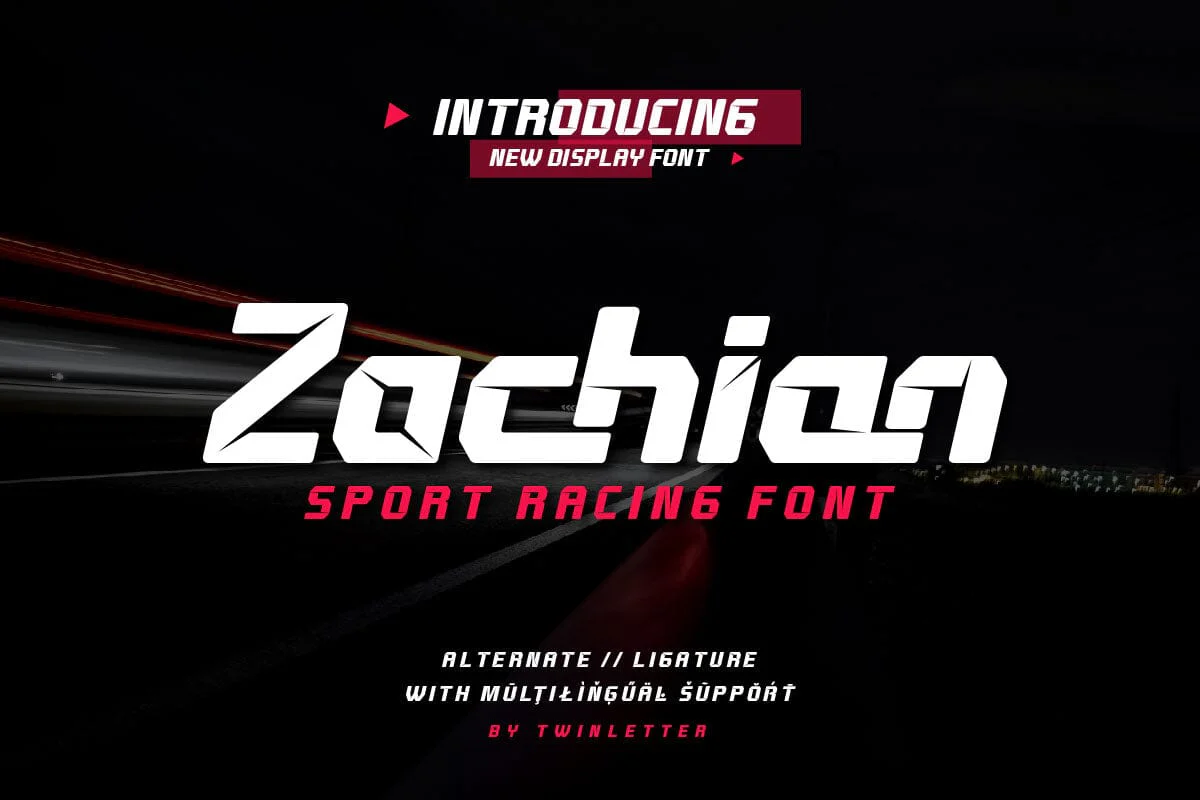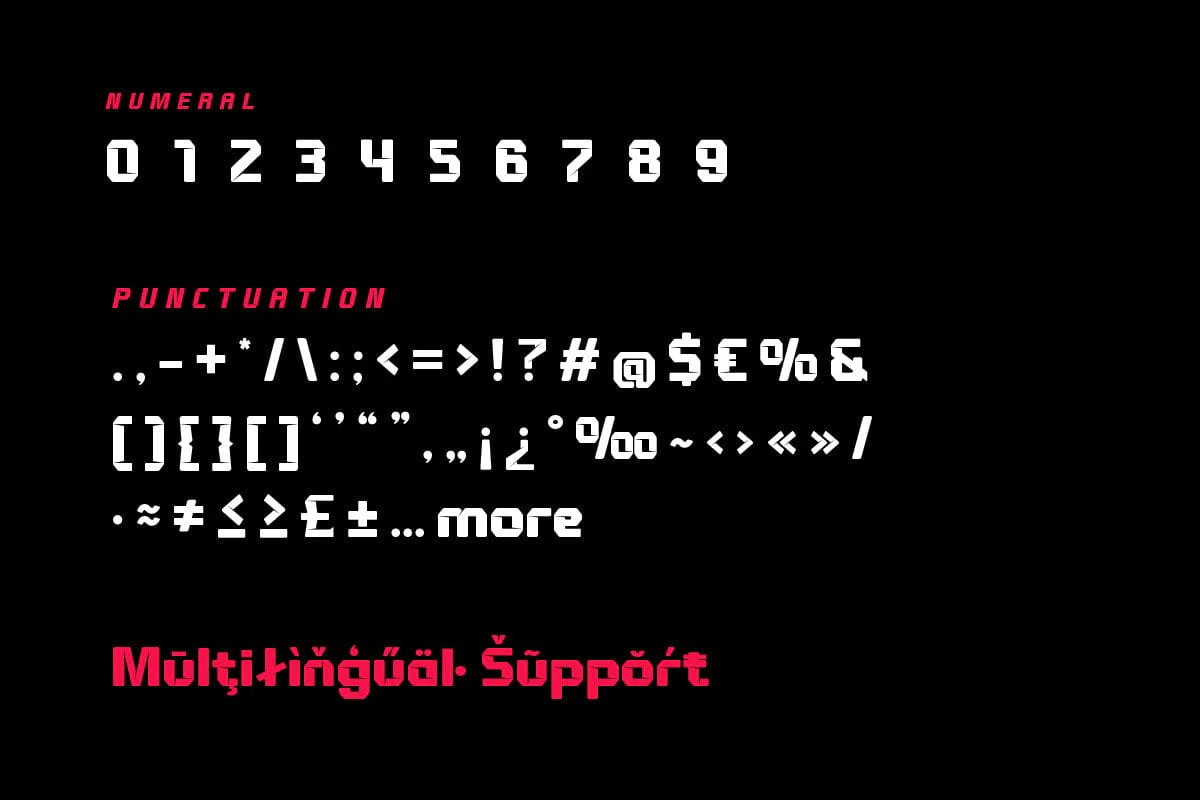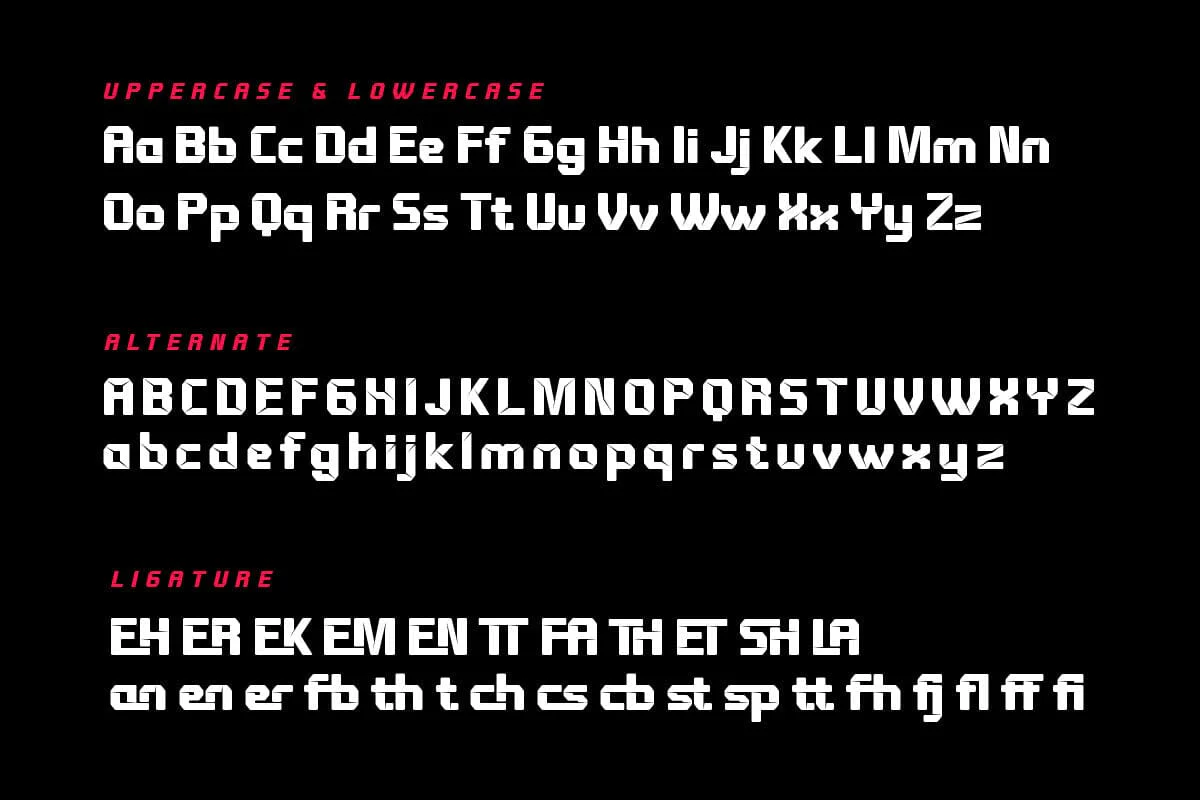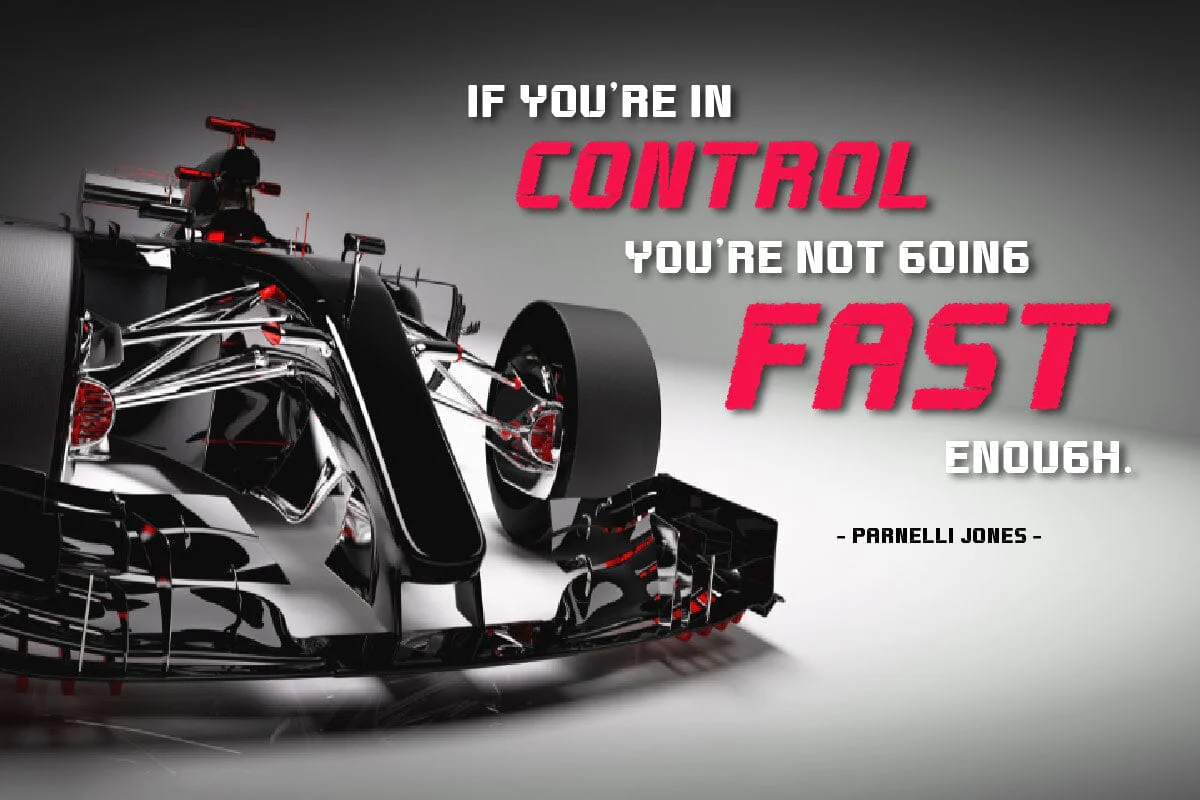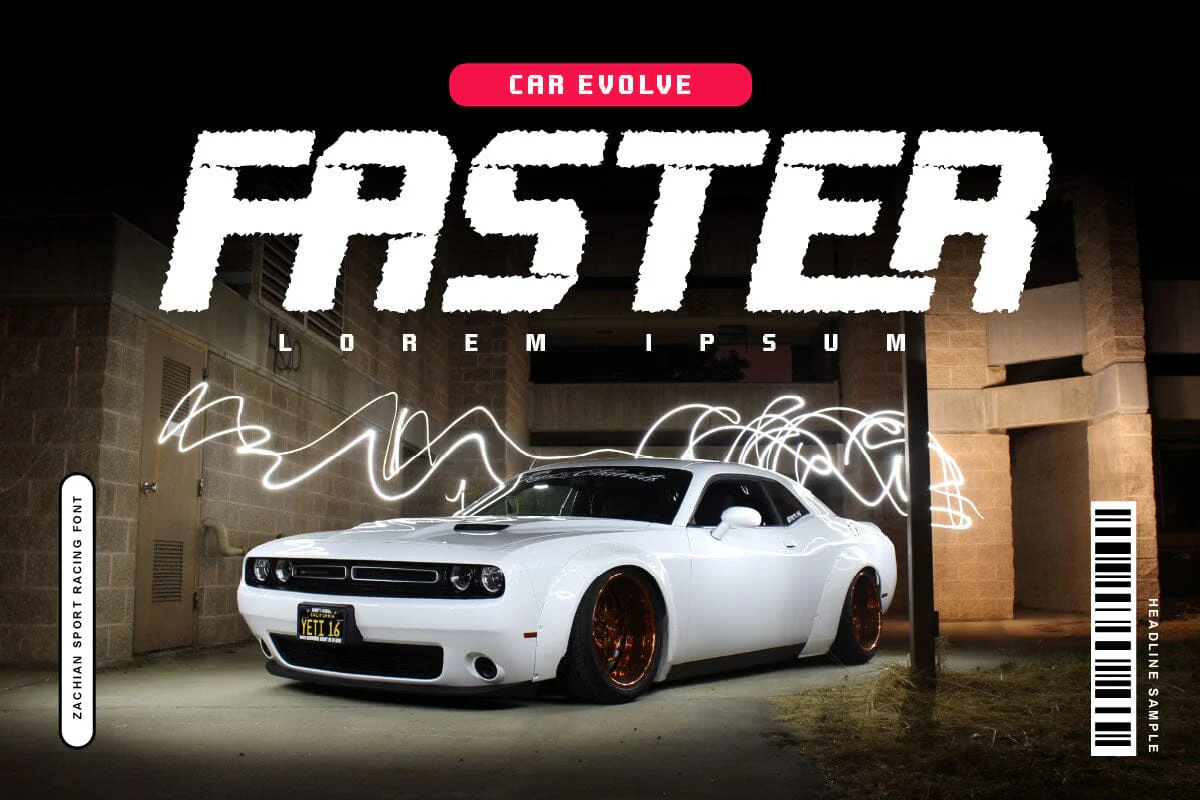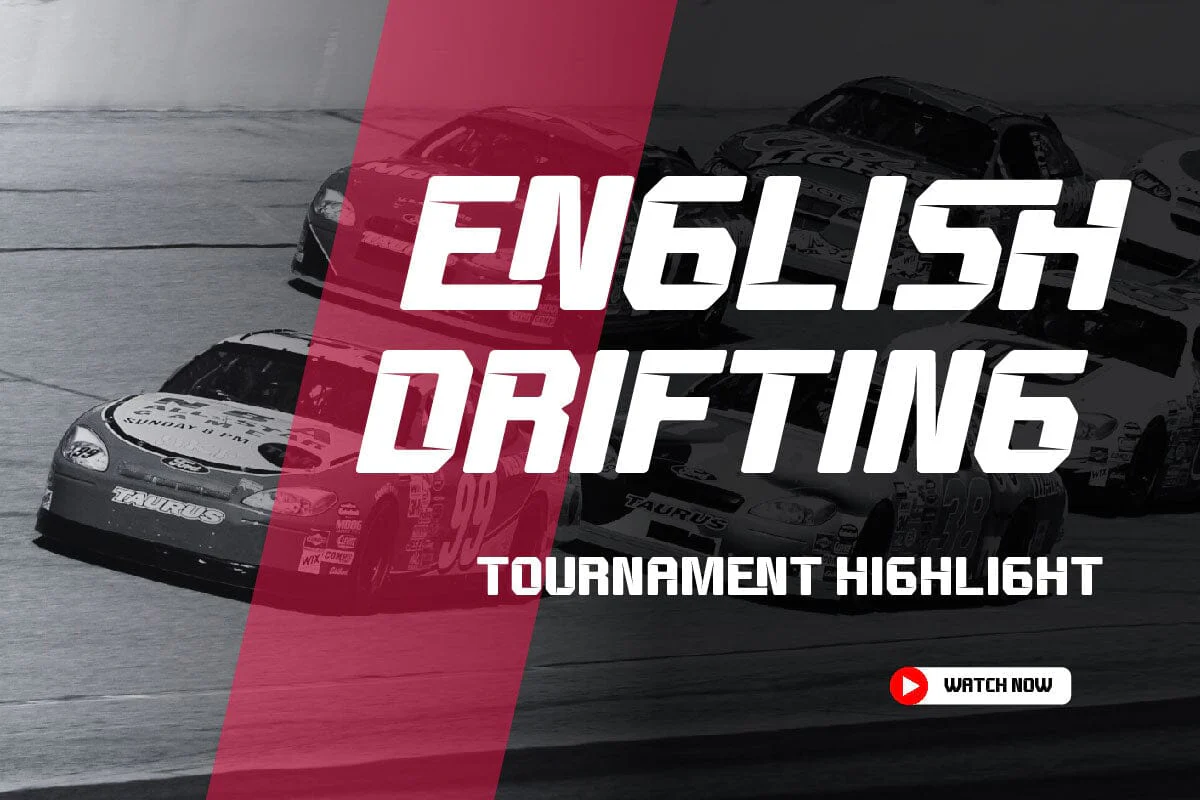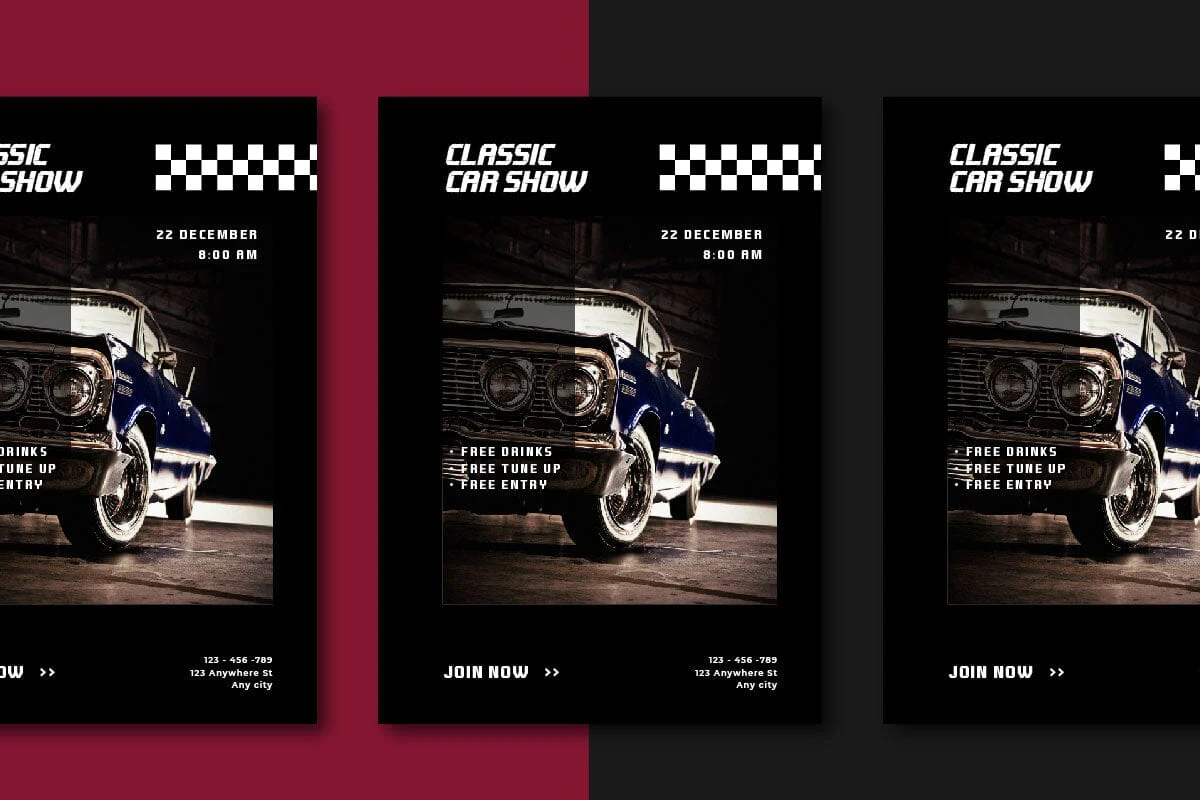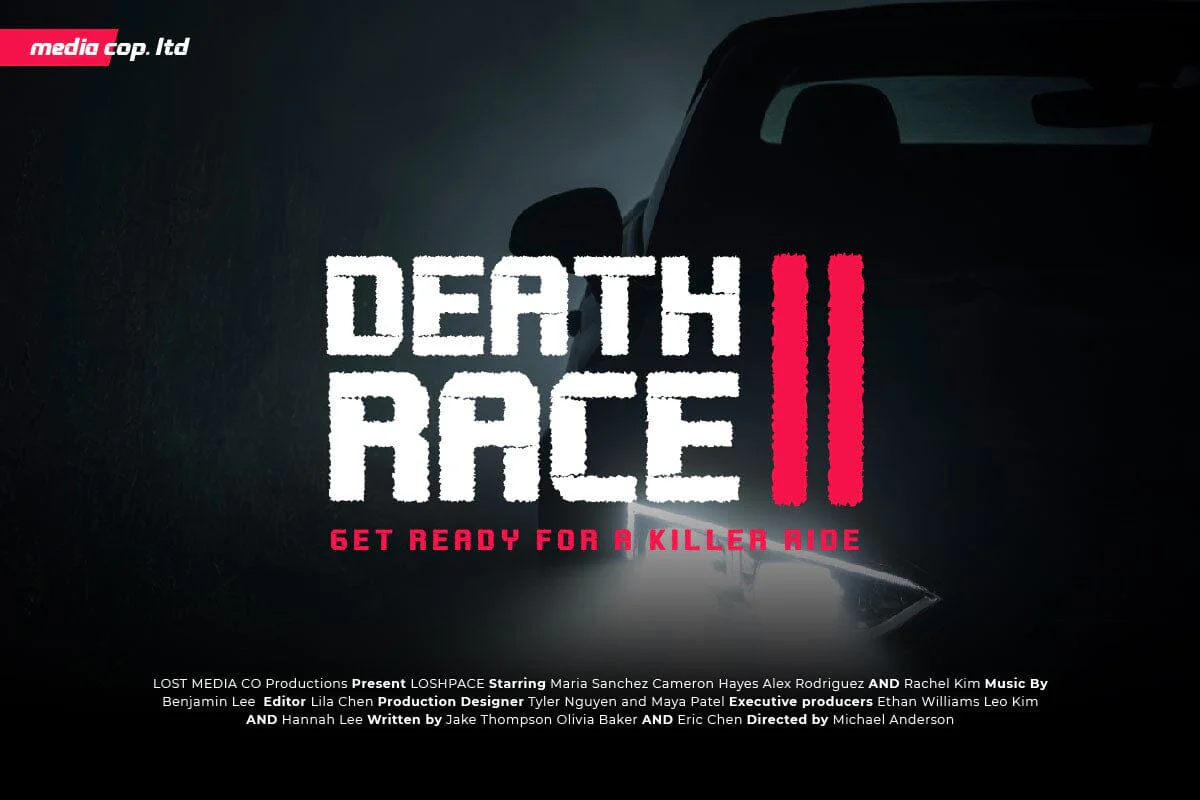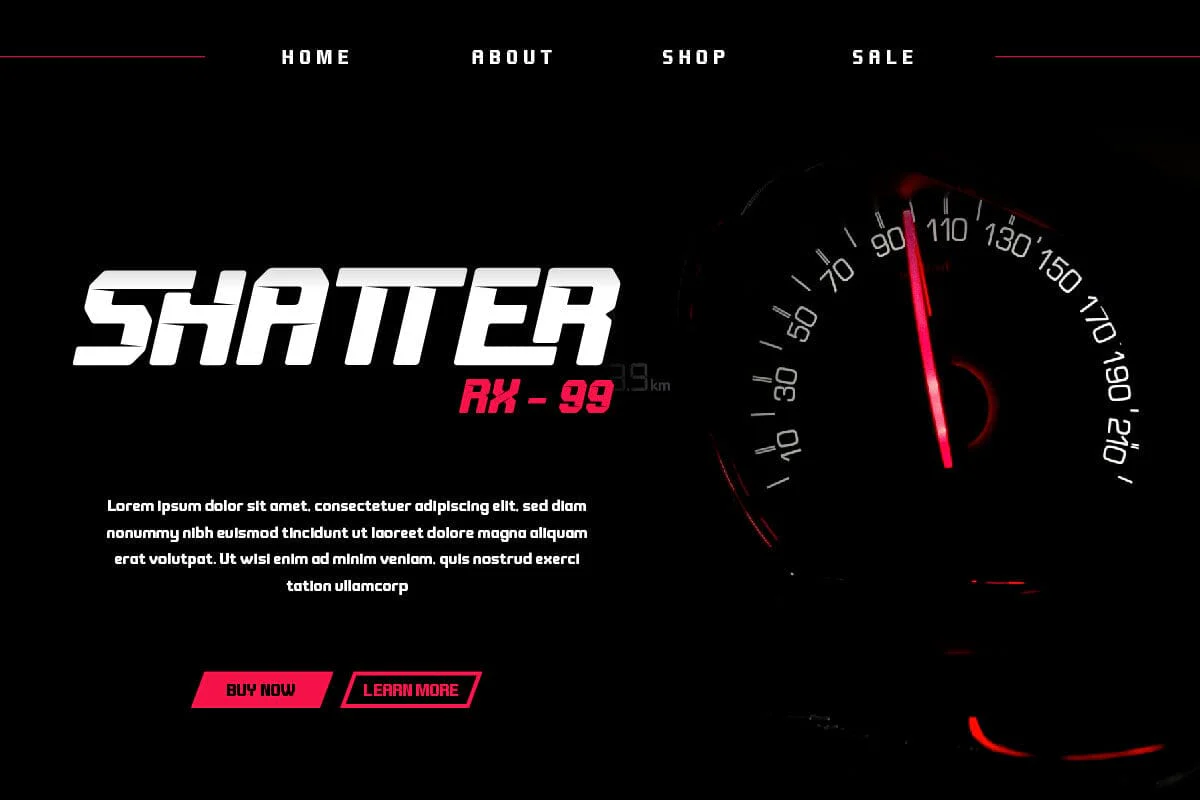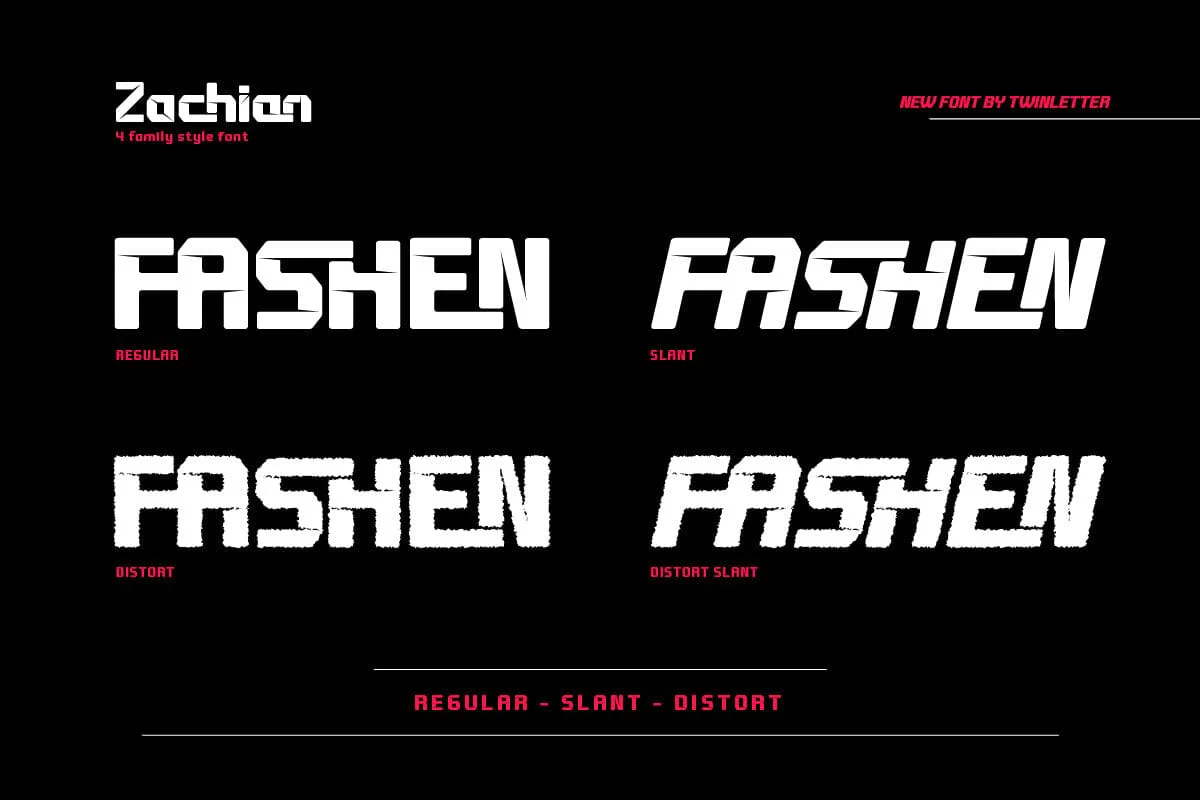
Zachian - Sport Racing Font
Zachian is a typeface specifically designed to create a look that is dynamic, energetic, and related to the world of racing or extreme sports. This font combines modern elements with an aggressive touch, creating a typographic character that exudes power, speed, and excitement.
Each letter in Zachian has an aerodynamic design with sharp corners, creating a sense of movement and dynamics. This font is often used in logo designs, racing numbers, or other design elements that want to express the speed and passion of sports.
Zachian can be a great choice for projects related to the world of racing, motorsport, or extreme sports. With a dynamic and modern design, this font can provide an appearance that depicts the spirit of competition and speed which is very suitable for design purposes in the world of racing sports.
Zachian is a typeface specifically designed to create a look that is dynamic, energetic, and related to the world of racing or extreme sports. This font combines modern elements with an aggressive touch, creating a typographic character that exudes power, speed, and excitement.
Each letter in Zachian has an aerodynamic design with sharp corners, creating a sense of movement and dynamics. This font is often used in logo designs, racing numbers, or other design elements that want to express the speed and passion of sports.
Zachian can be a great choice for projects related to the world of racing, motorsport, or extreme sports. With a dynamic and modern design, this font can provide an appearance that depicts the spirit of competition and speed which is very suitable for design purposes in the world of racing sports.